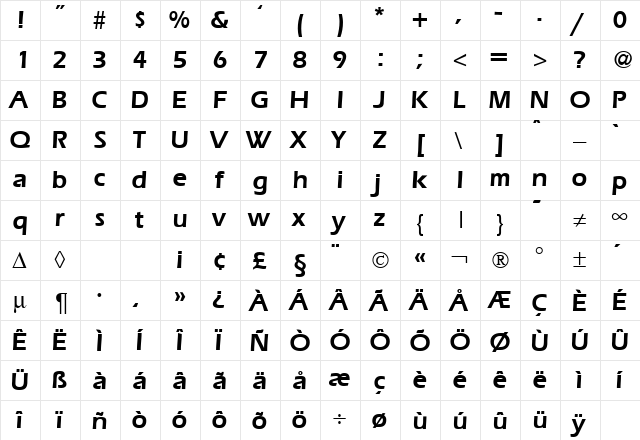
ErgoDemi Regular
Design Context for ErgoDemi Typeface
ErgoDemi is a composed and adaptable typeface that performs quietly and consistently across a wide range of design contexts.
Pro Tip: Pair ErgoDemi with a font of contrasting weight or personality to build a more expressive typographic hierarchy.